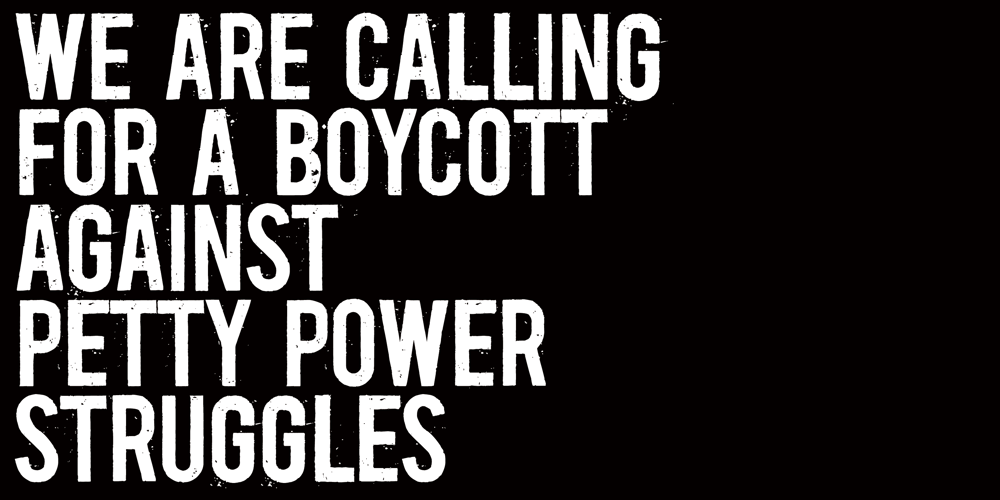
Boycott
Boycott font
Boycott Font Family was designed by Ryoichi Tsunekawa and published by Dharma Type. Boycott contains 1 styles and family package options. We are calling for a boycott against petty power struggles. Uppercase and Lowercase are slightly different from each other. This grungy font won prize at the best font 2006 and new Rising Star at MyFonts. “Boycott’s a noisy design -a little rough around the edges, but just the way we like our big grunge fonts. boycott is a perfect design for posters and large headlines.”